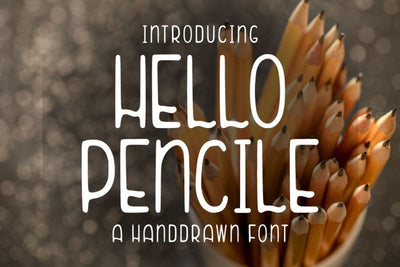
Hello Pencile – Handdrawn Font
Introducing Hello Pencile – Handdrawn Font
Hello Pencile is the perfect font for all your fun and minimalism designs. The main font file is equipped with ordinary characters. Everything is made with the funny brush. So you can be sure they will work well together! It is suitable for you to use in making t-shirt design, quote, label, packaging, logo type, or long writing. Because we have compiled kerning and matrices that are tailored to your needs.
Hello Pencile features:
- Suitable for crafter and cutting
- Opentype Features (Stylistic Alternates and Ligatures)